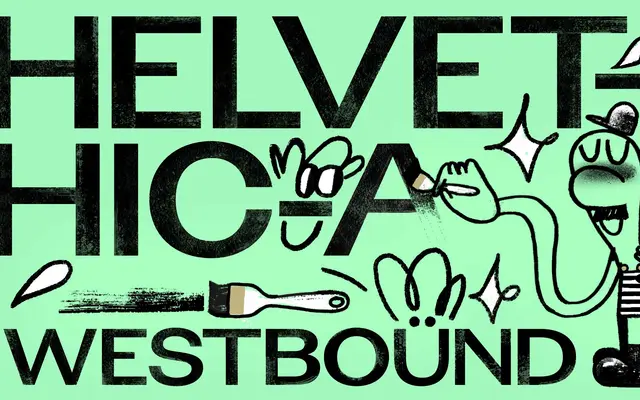
Avgarde
Monokrom · Frode Helland · 2023
A single-cut grotesque by Frode Helland, deliberately warped to mimic the wobbly hand of an unqualified sign painter attempting large-scale Helvetica-style lettering.
Sparked by a photograph of a lopsided station sign at Boston's Boylston light rail stop, Helland reconstructed an entire typeface from just three droopy characters and a fragment of an arch before discovering what the original sign actually looked like. The result is a controlled collapse of grotesque convention: uneven proportions, erratic spacing propped up by over 1,700 lines of triplet kerning, and a general air of cheerful incompetence. It has one weight, a limited character set, and a personality that most type families spend decades trying to avoid.
A single-cut grotesque conceived as a deliberate distortion of Helvetica-style letterforms, channelling the irregularities of an untrained sign painter rather than any formal grotesque tradition.